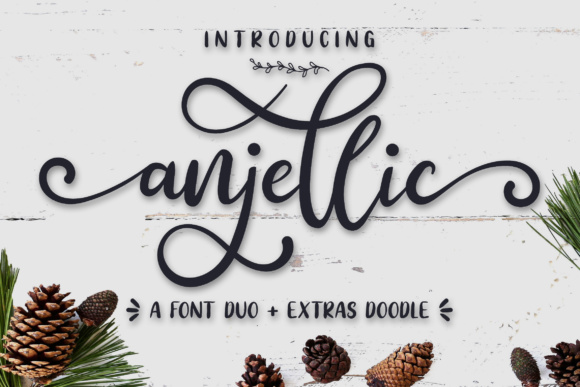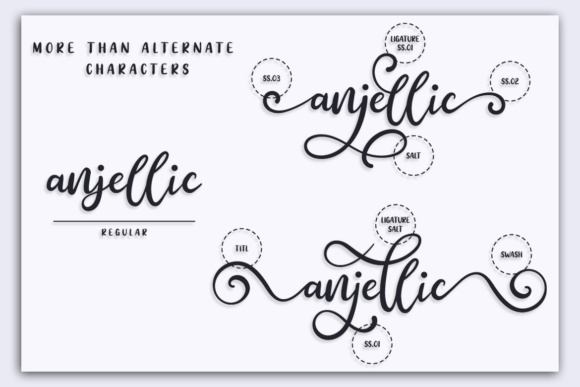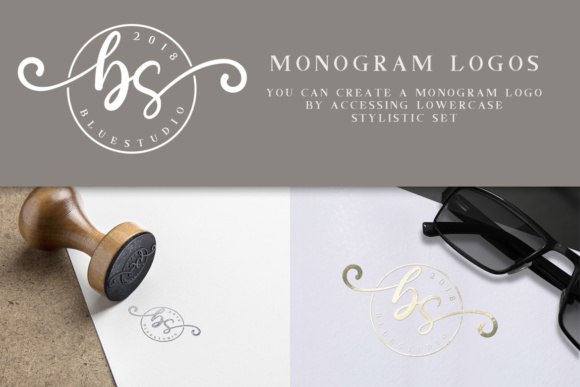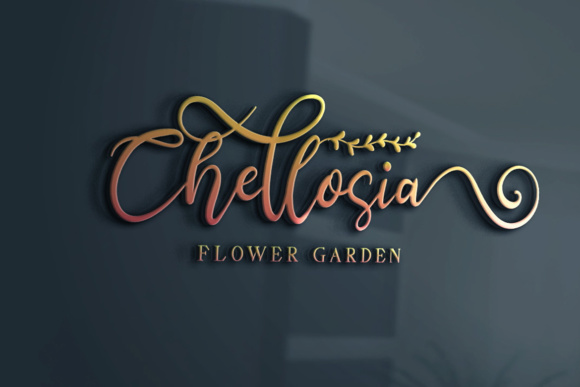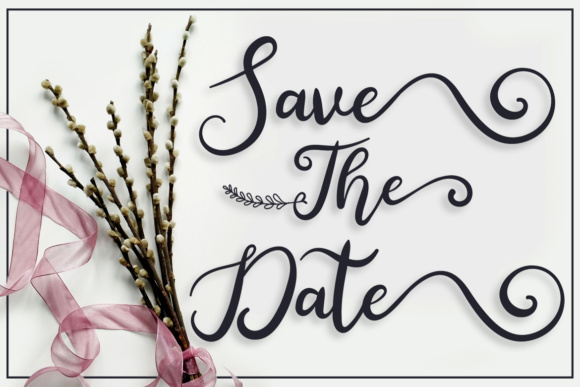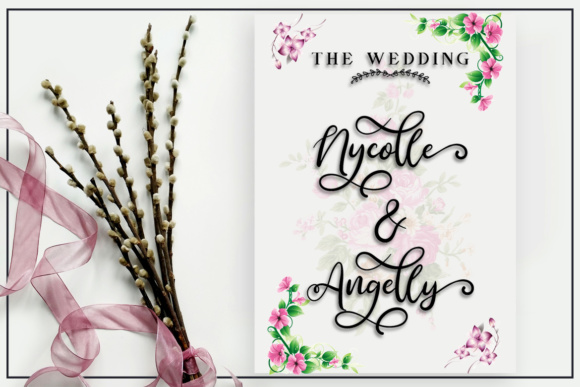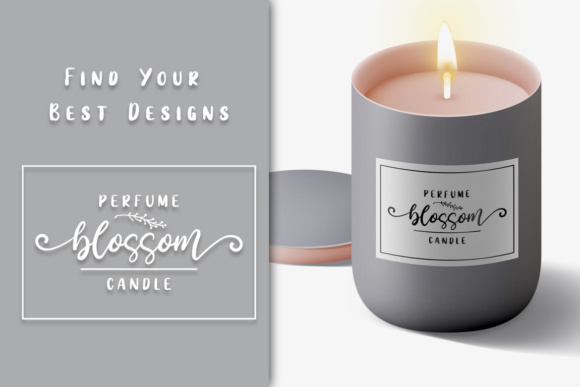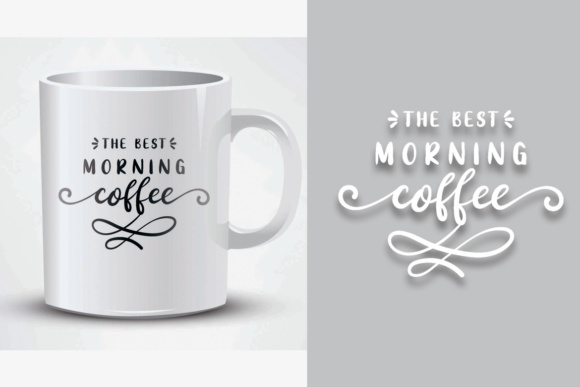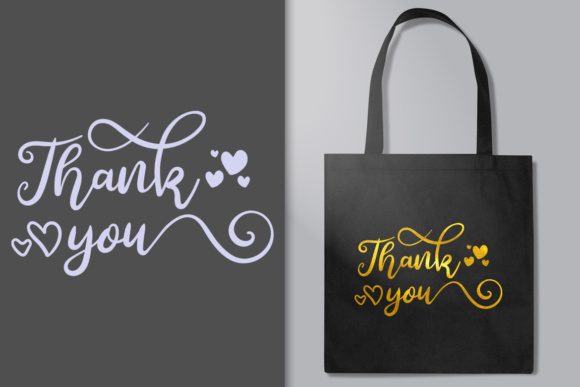
Anjellic Duo Font
About Anjellic Duo Font
The Anjellic is a beautiful font duo. It includes a handwritten script font, a sans version, and beautiful doodles to spice up your designs. It offers a typographic harmony for a variety of design projects.